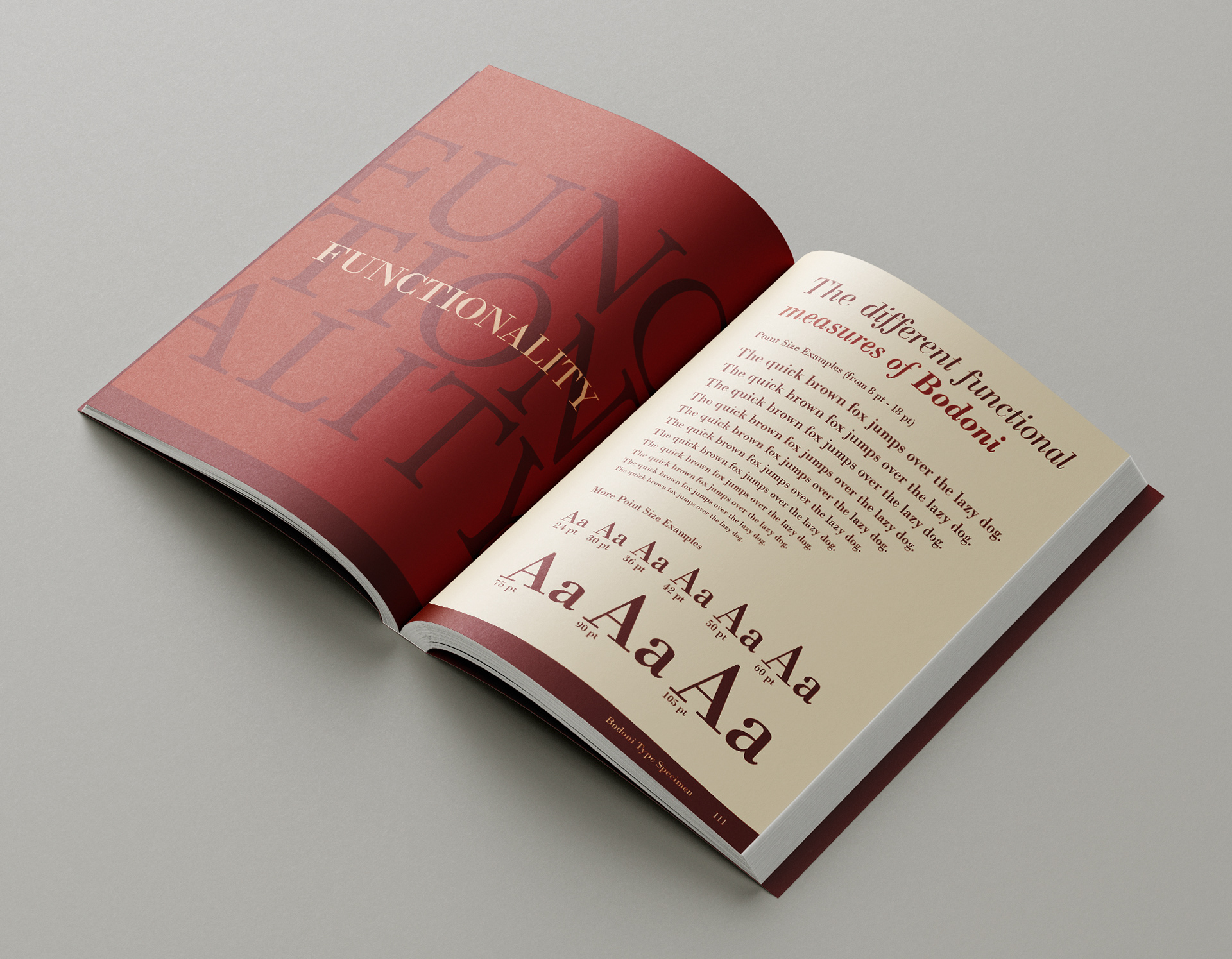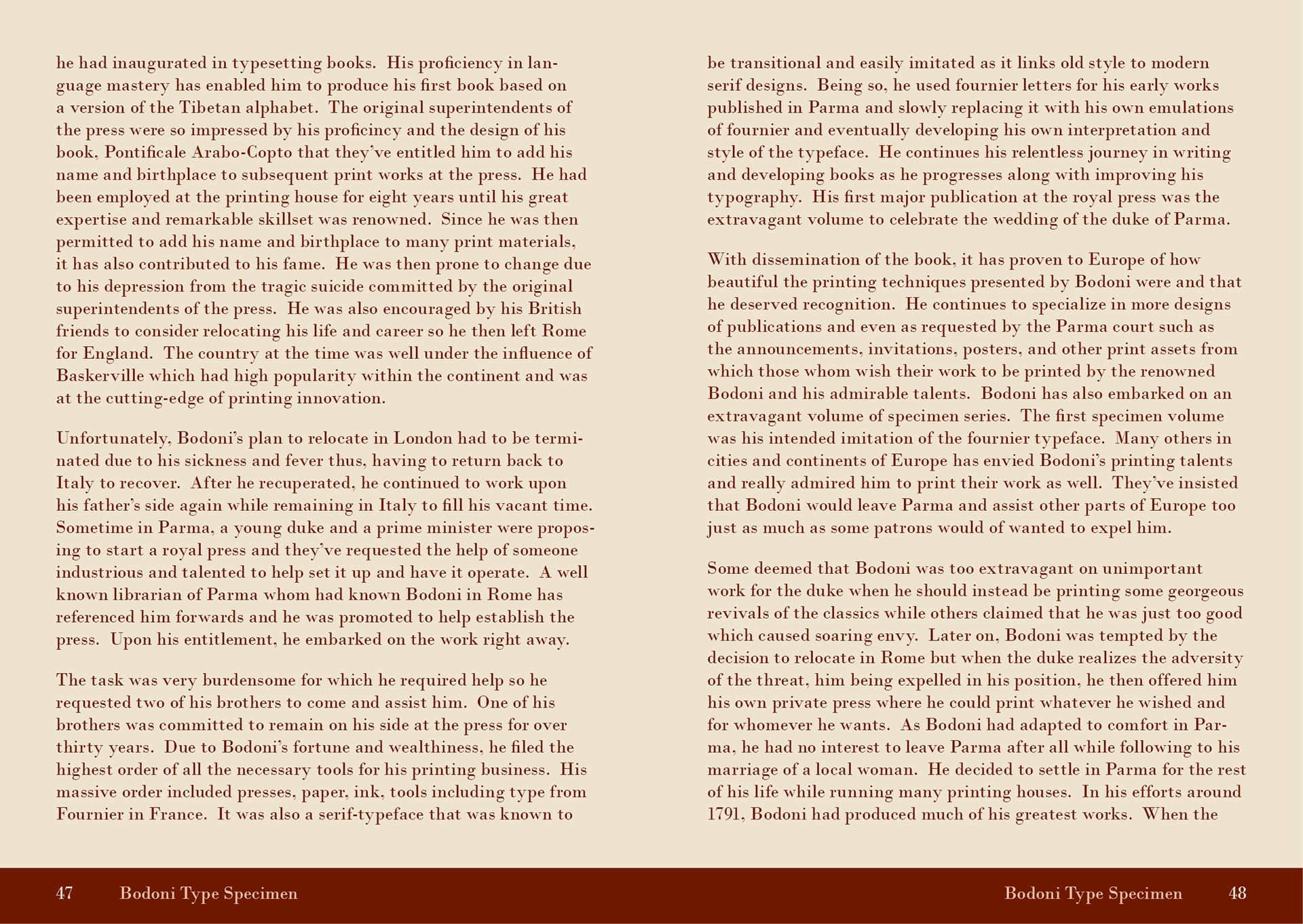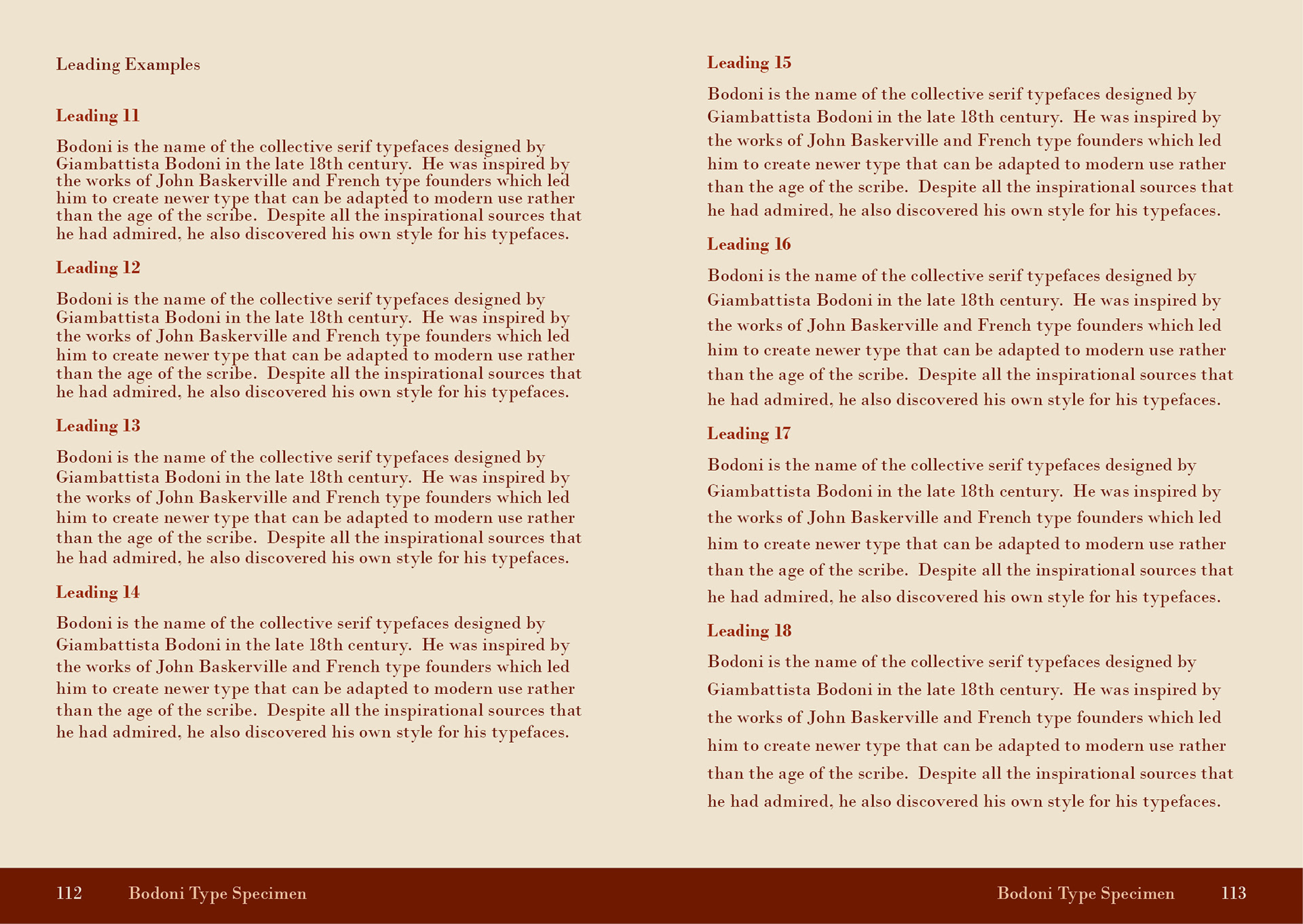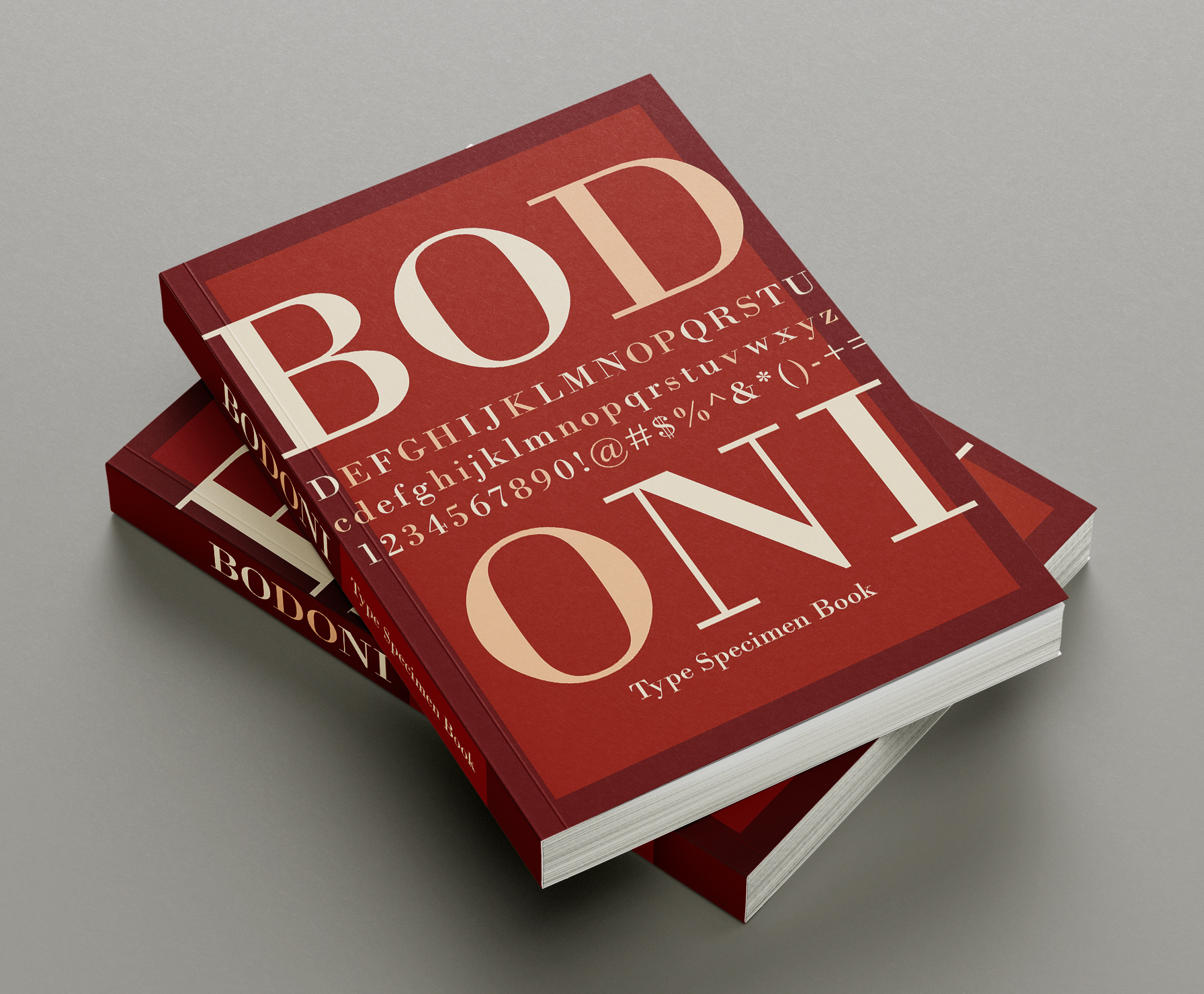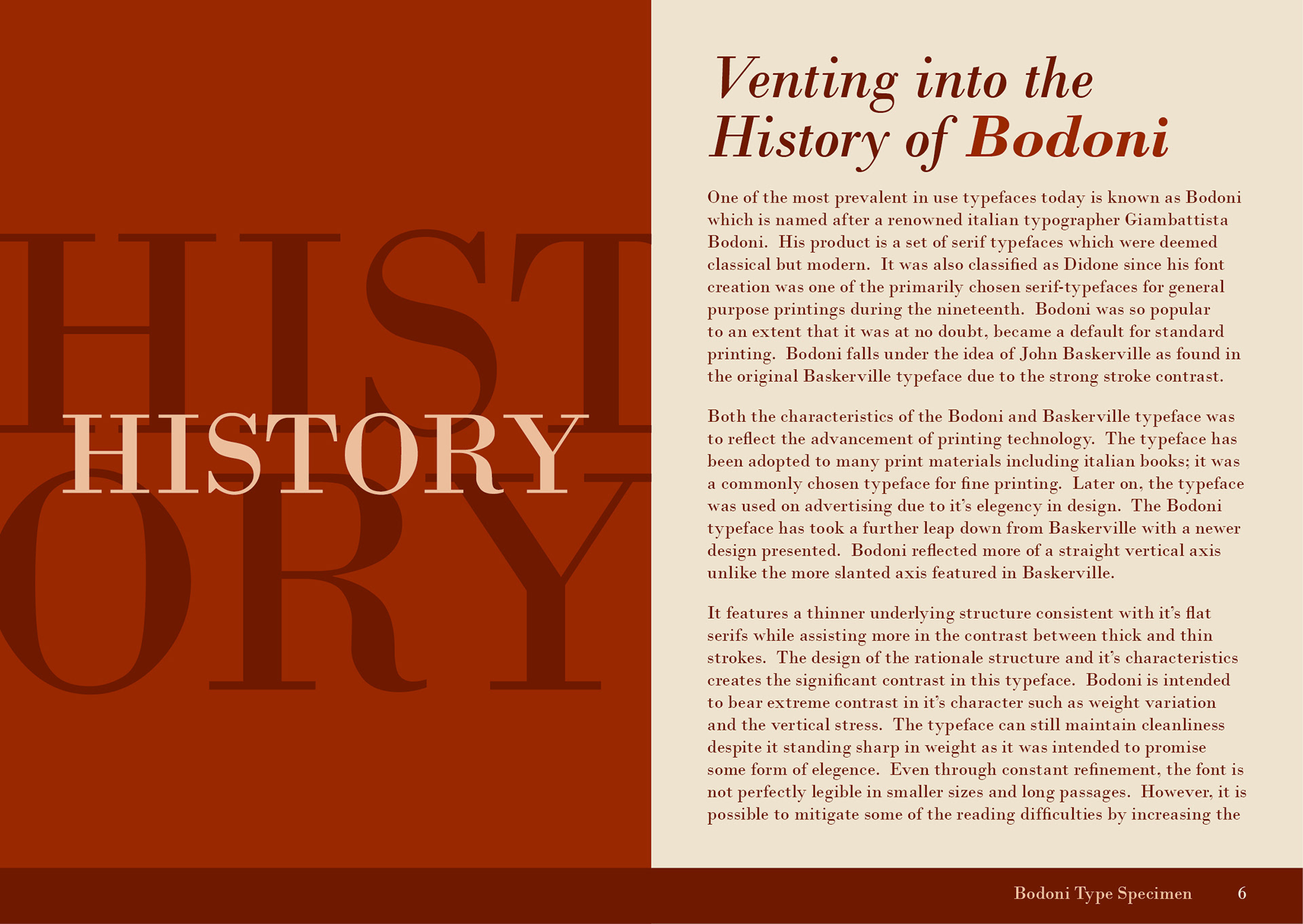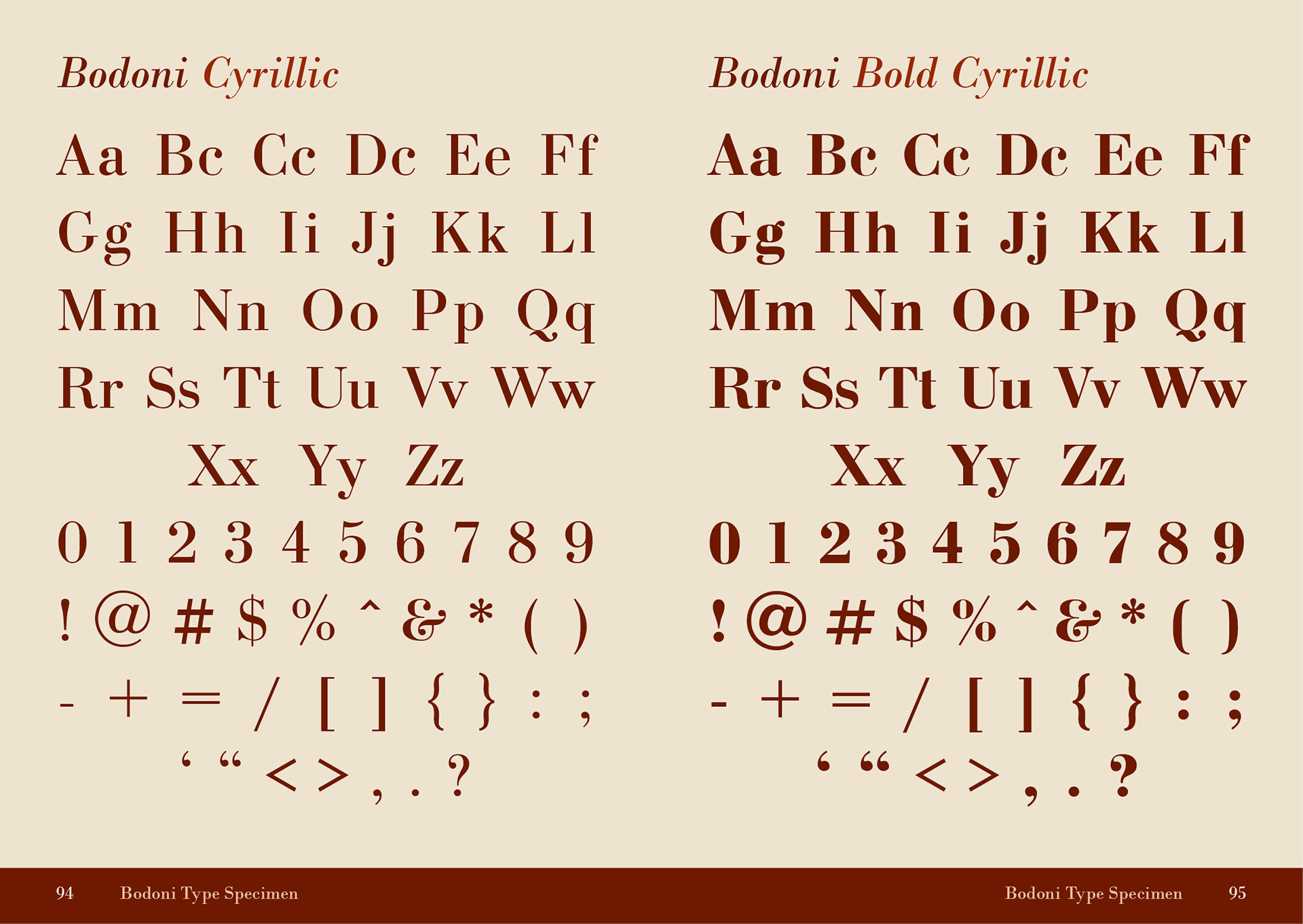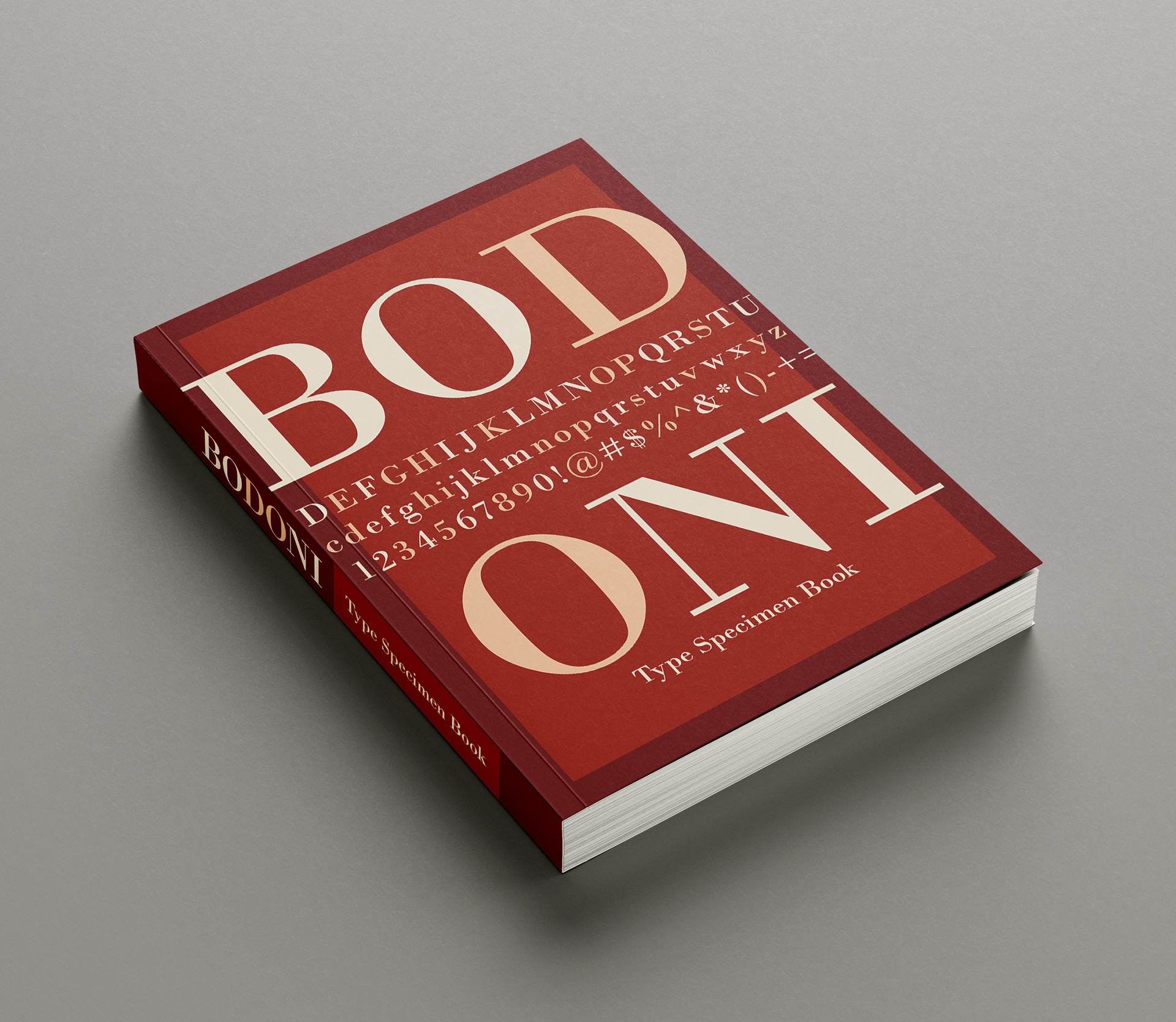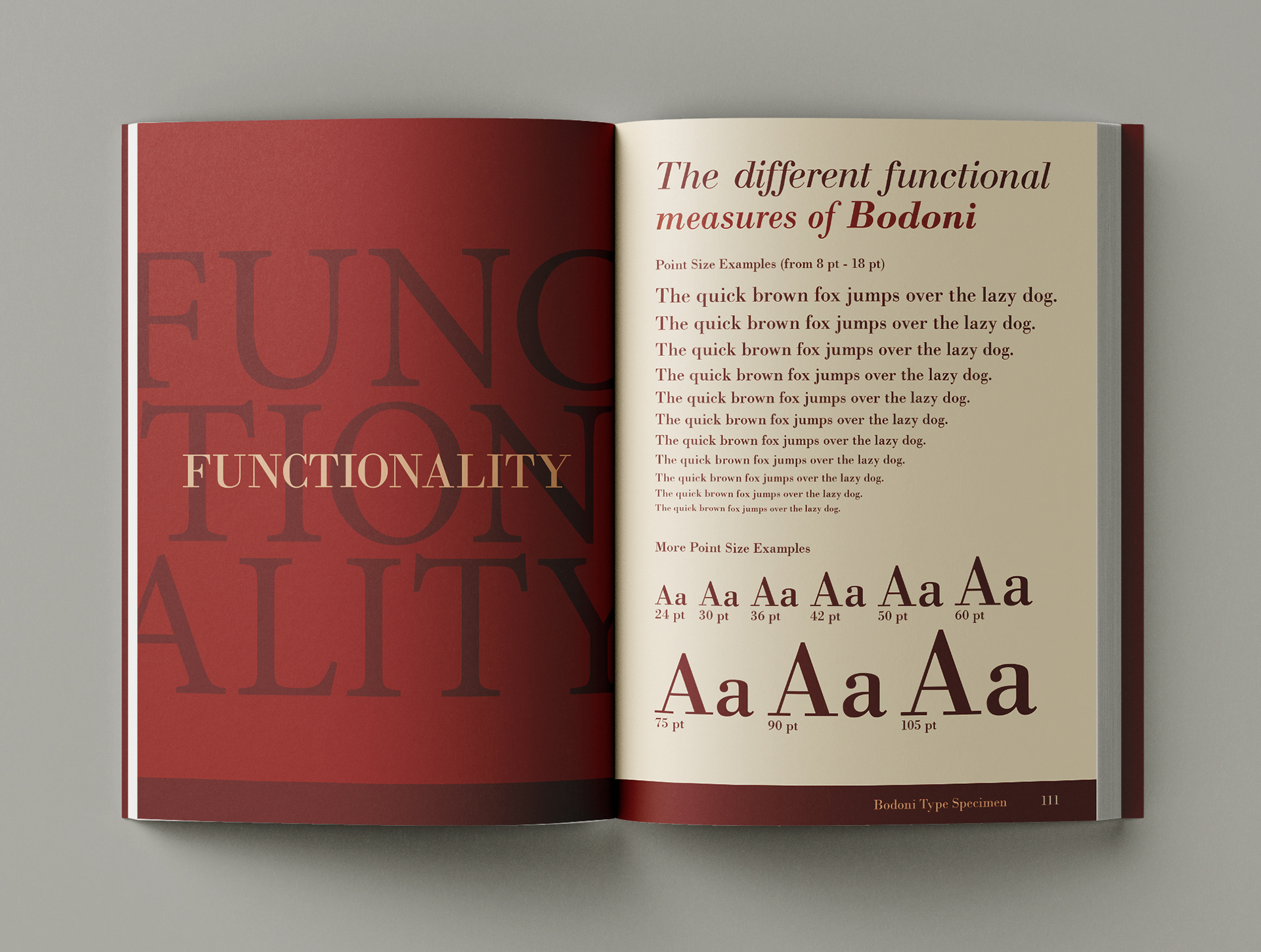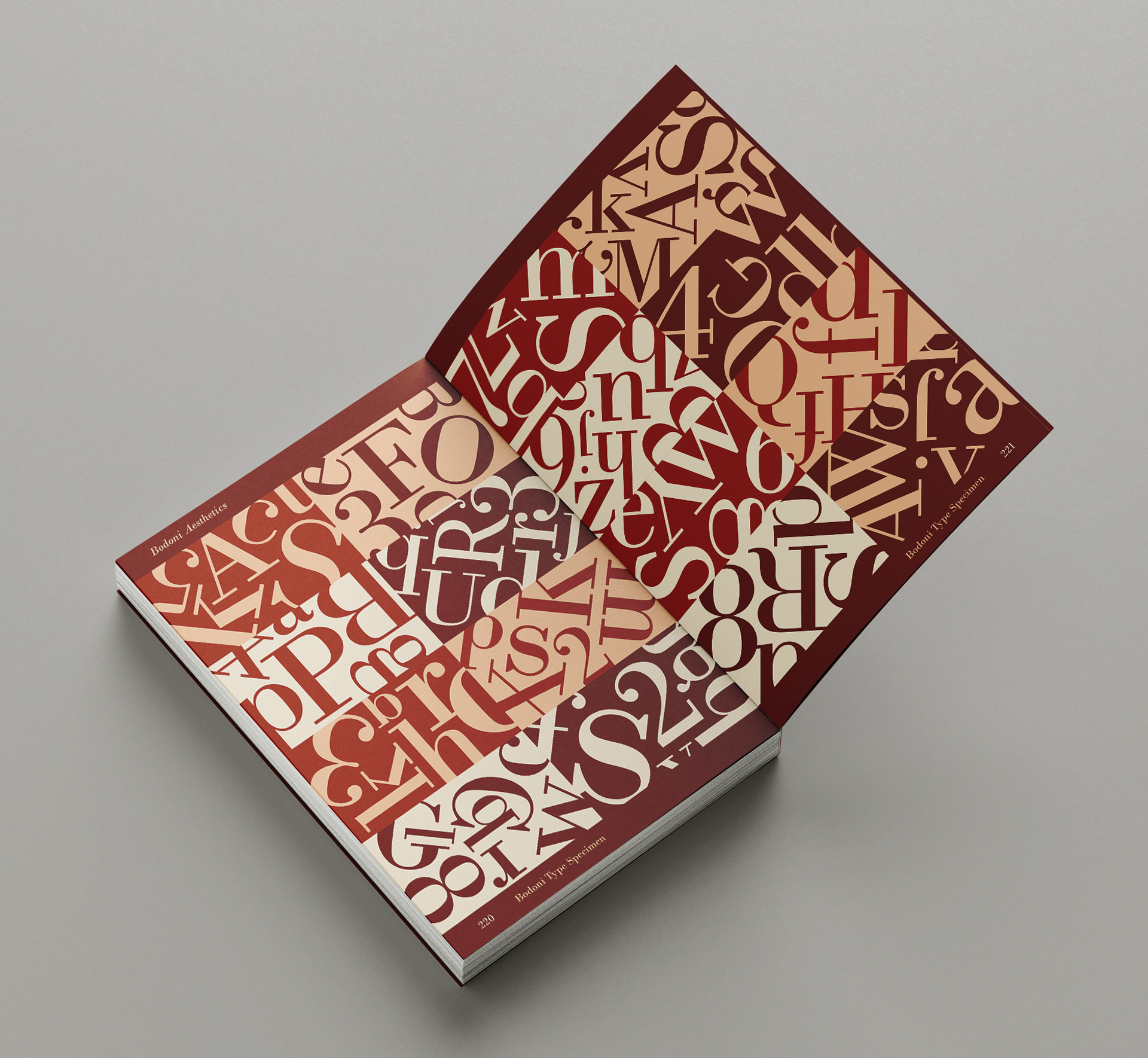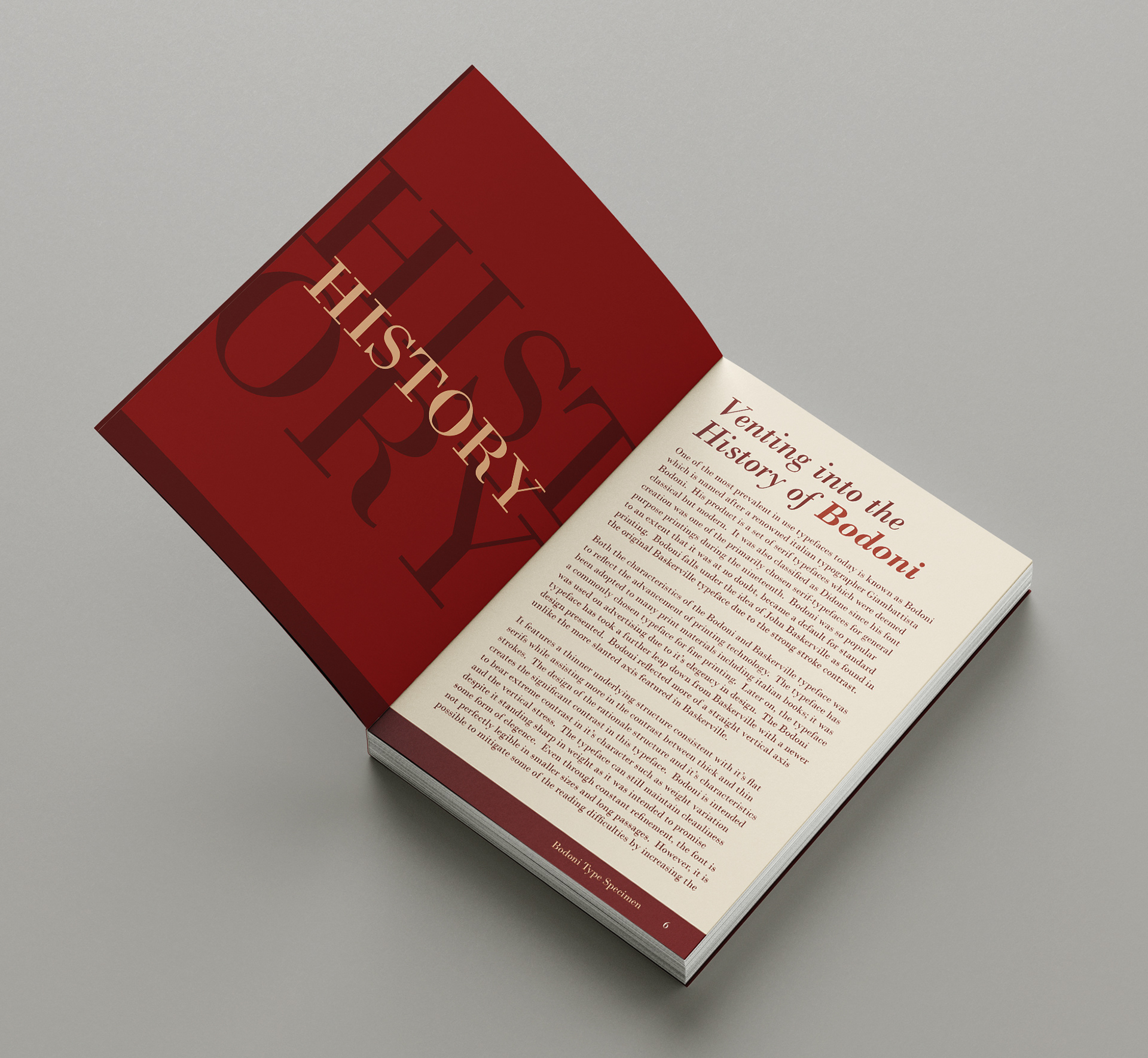
This is a type specimen book on the Bodoni typeface to showcase its design, attributes and usability. The book would boast of the typeface history and how it derived from the printing industries being landed into the technological world along with researched facts including the biography and early life of the original type designer and how he became renowned for his work The book would provide visual examples of how this typeface performs in various point sizes, leading measurements, weights and paragraph structures. It also showcases the appearance of the upper cases, lower cases, numerals, punctuations and the full glyph set. There is also an aesthetics page to convey the mood of the font.
This sample preview includes some pages of the specimen book such as the cover, title page, table of contents and the most important context pages. There are some sample pages on the typeface and font designer chapters as well as the functionality of the font, paragraph sampling and typeface anatomy. There are full pages on the font family, the full glyph set but showcased in only one default font weight and the aesthetics page to show off the beauty and the aesthetic sense of the font; in this case, it gives a modern and elegant outlook. As a sample, not all pages of this book will be presented. The actual paperback book would have hundreds of pages with all chapters combined including the historical context from compiled facts.
Here are some mockups of the book showing how it would appear when assembled and printed. It is a paperback book with perfect bind to hold together the pages inside. The cover would have a matte laminated feel to it.